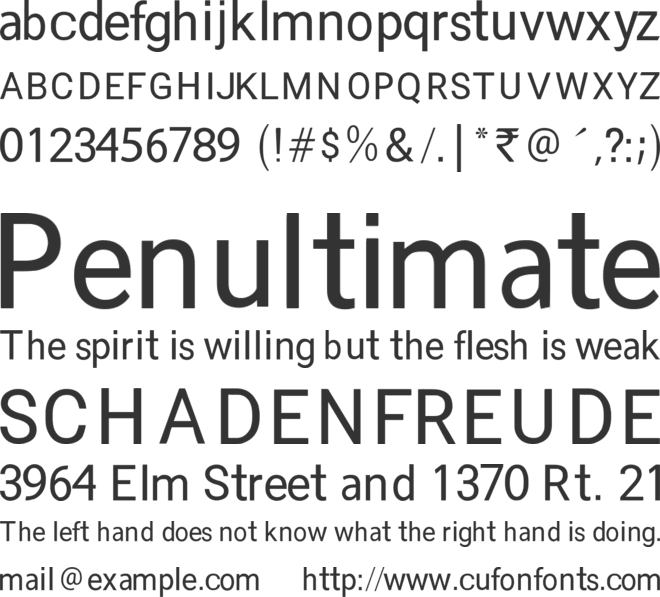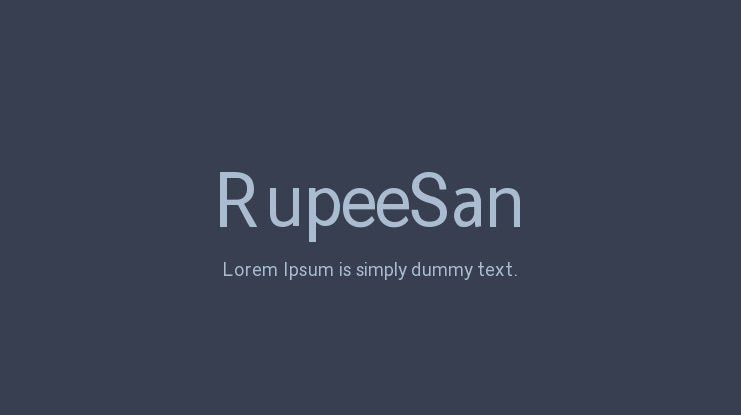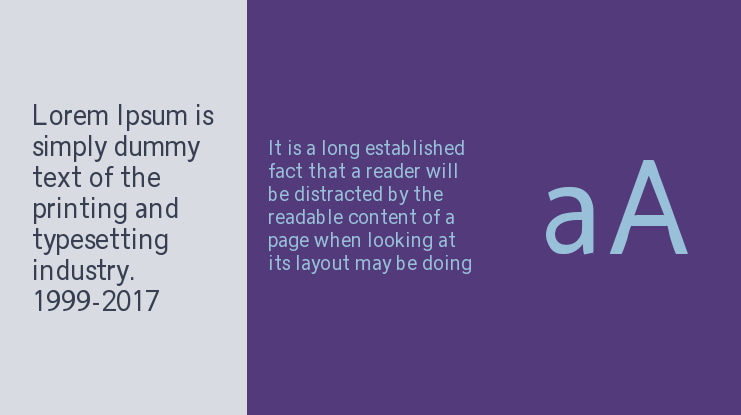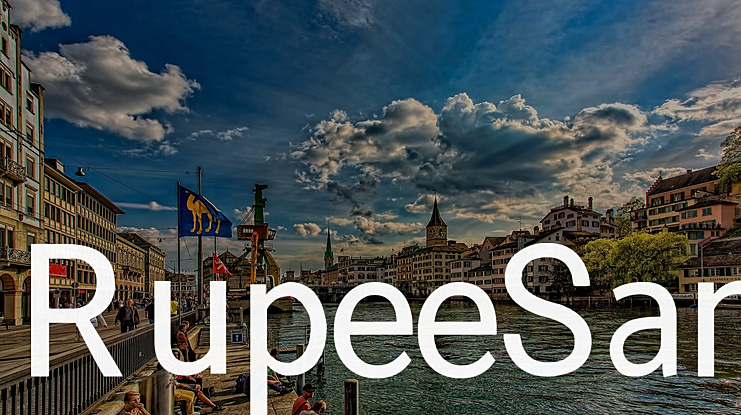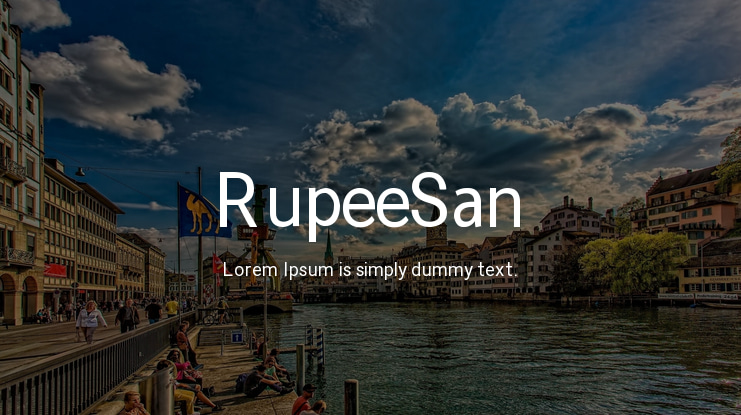
This is a free font for public interest who wants to use Indian Rupee (INR) symbol in website or software or for their device in online or offline mode.